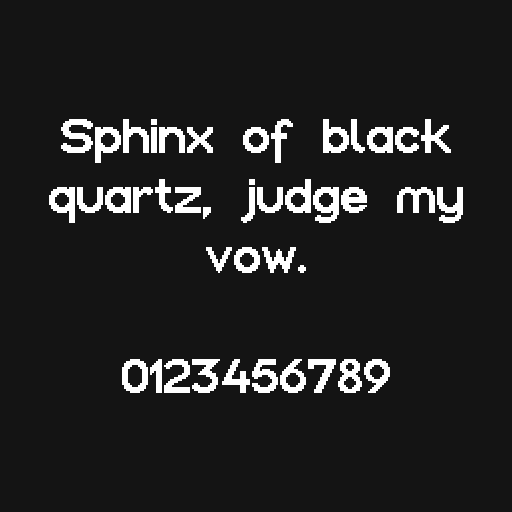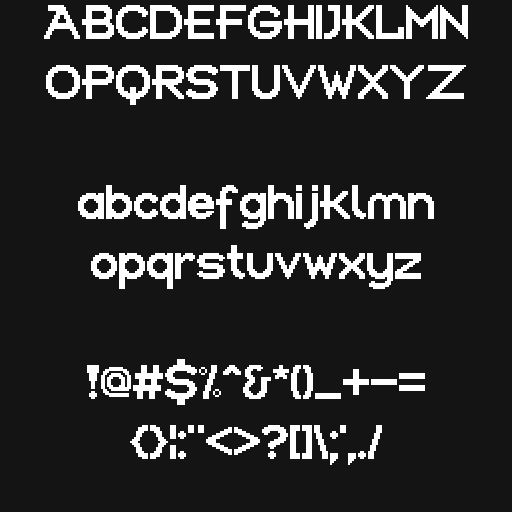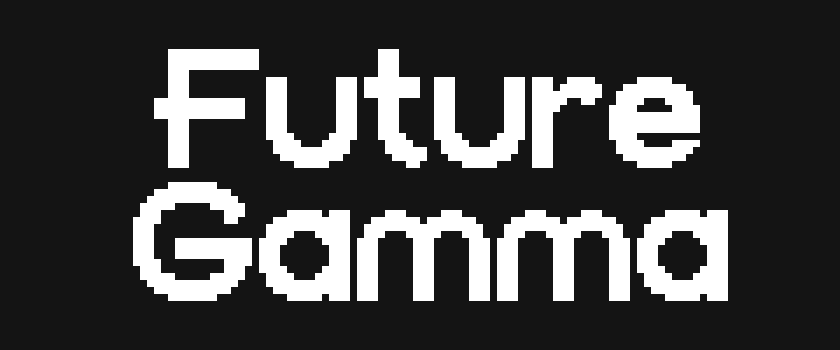
New Font Release - Future Gamma
Future Gamma - 22x20 Pixel Font » Devlog
New font release Future Gamma!
Based on the font from a cartoon with a similar sounding name.
Future Gamma - 22x20 Pixel Font
Brought to you from the 31st century